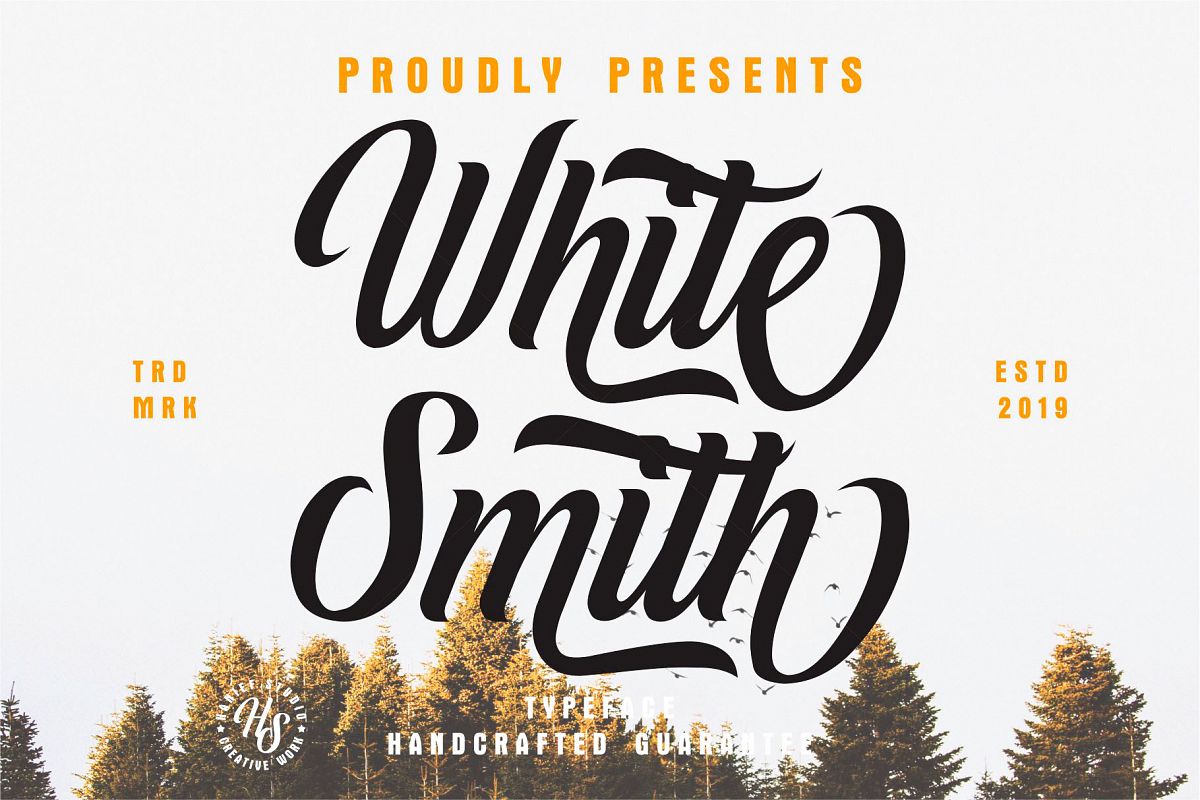
White Smith
White Smith with modes and there are every shape of clean letters. I make with of each curve's touch.. I hope this can inspire you from your work. and a very bouncy baseline It has a perfectly paired complimentary marker font. Ideal for logos, handwritten quotes, product packaging, headers, posters, merchandise, social media & greeting cards.Files Include: